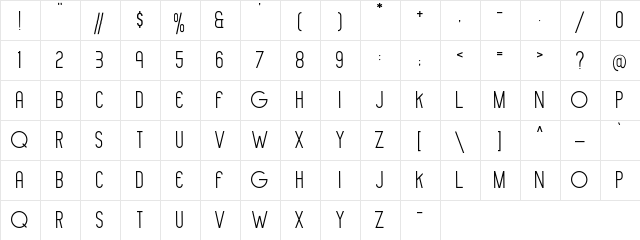
Hollen amare sans Regular
Design Context for Hollen amare sans Typeface
Hollen amare sans is a composed and adaptable typeface that performs quietly and consistently across a wide range of design contexts.